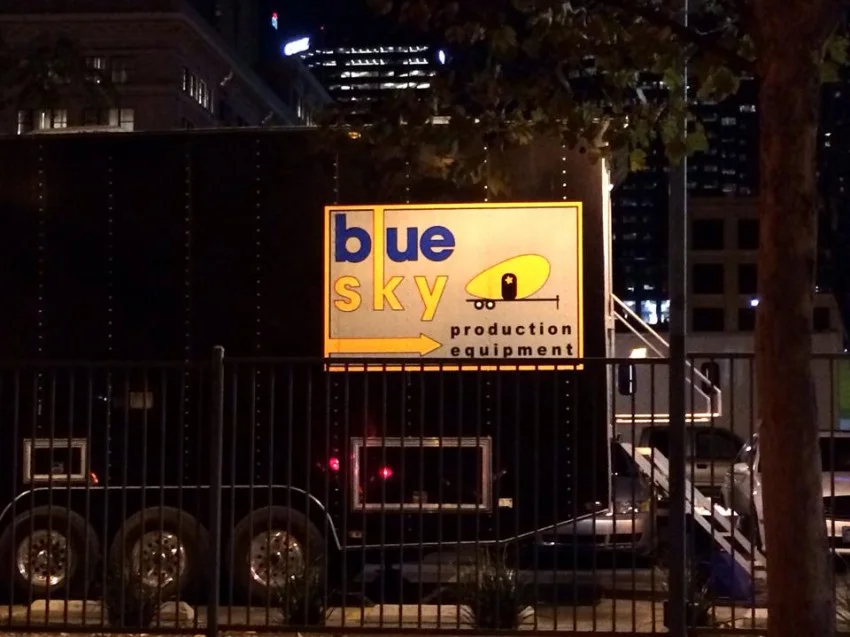
Today kicks off #TypeCrime month! We’re challenging you to find type crimes and expose them to the world. Expose the injustice towards the readers everywhere!
Stand up for legibility, use your powers against visual abominations and fight design laziness. Want to join us? Take a photo and post them to the internets!
Heroically call out these infractions with the hashtags #TypeCrime and #TypeEd on your photos on your Twitter and/or Instagram accounts. Throughout the month, we’ll search and repost visual offenders. If we see you’ve shared a supervillian** you’ll win a typographic gift!* Original photos or screenshots only, please don't steal from the web. Let us know where you found it, or geotag the location.
** Apologies in advance if any type crimes spotted are yours.